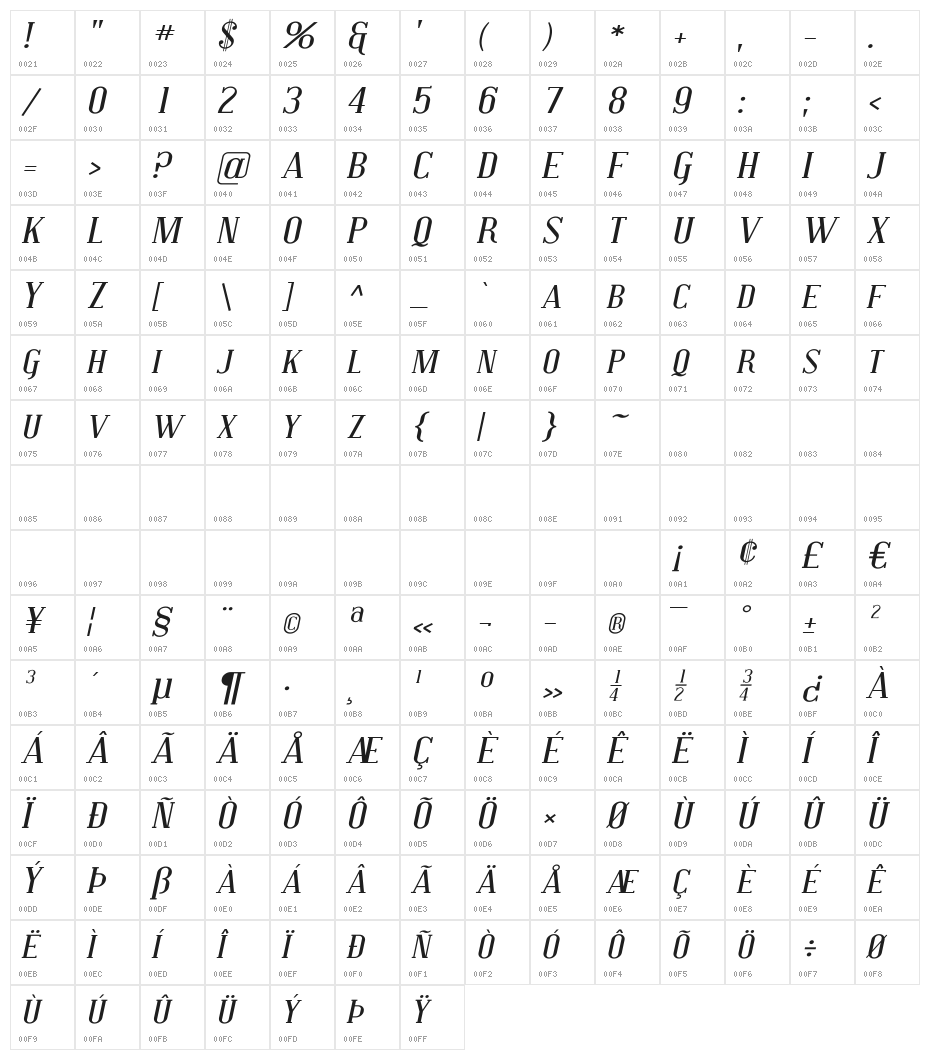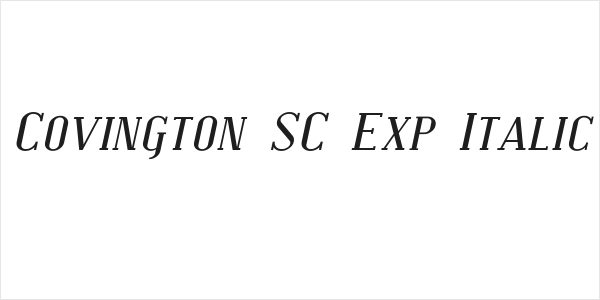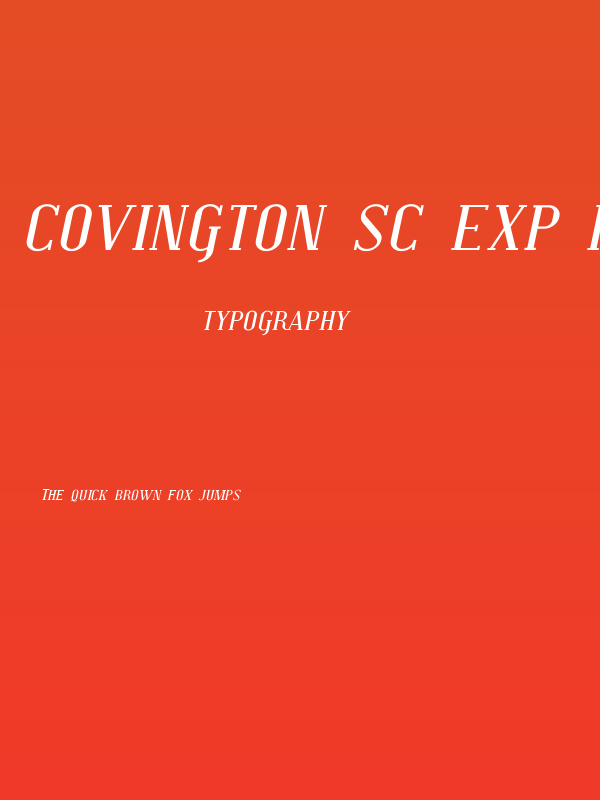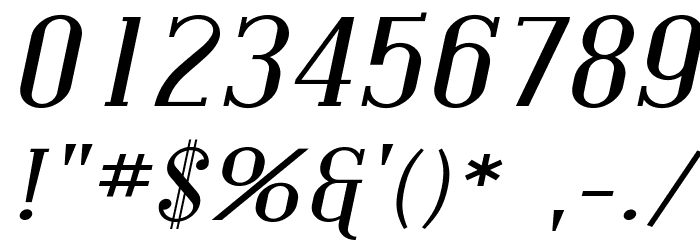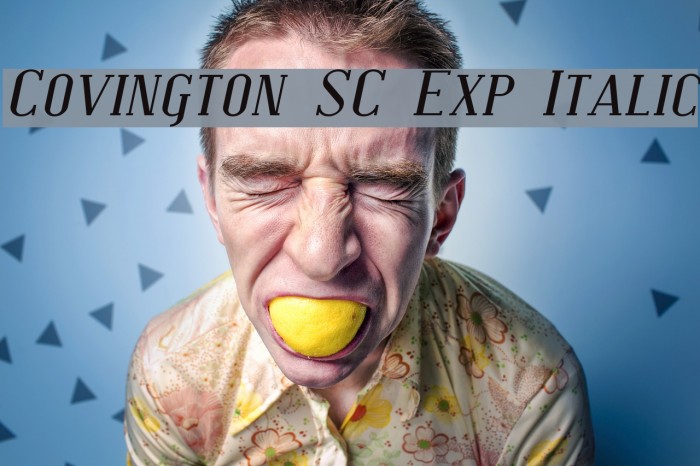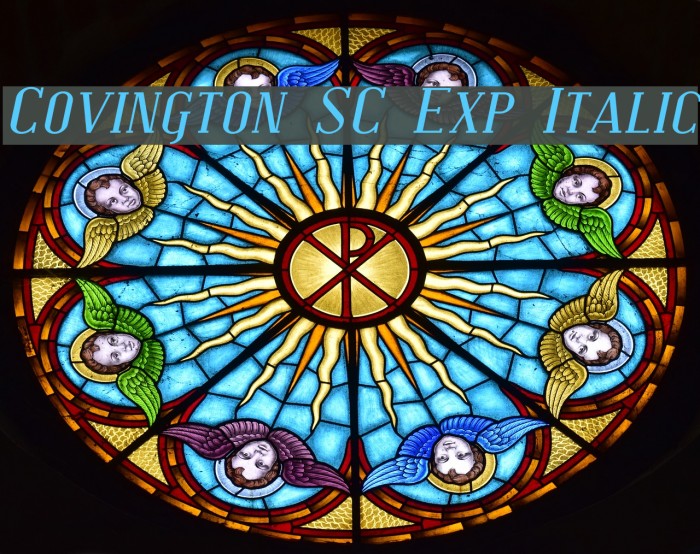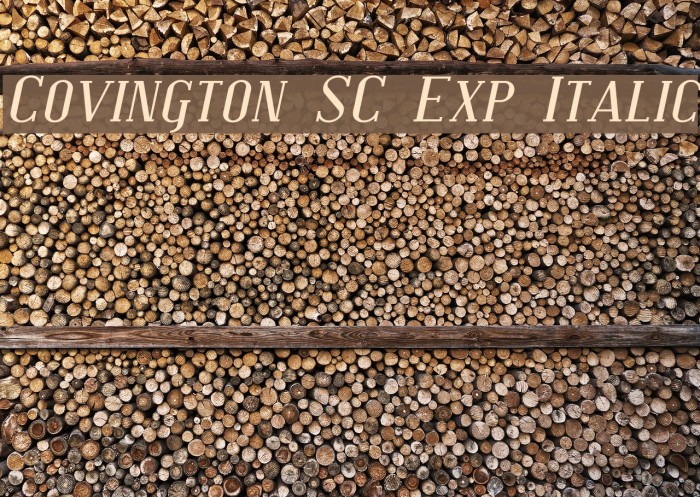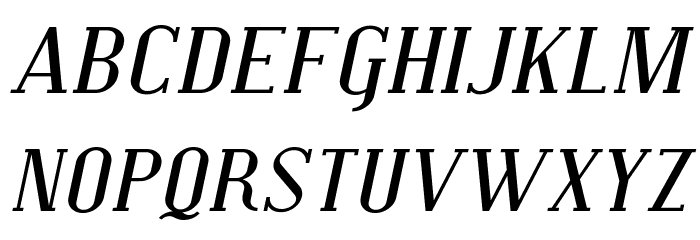
Covington SC Exp Italic Font
This font exudes a classic elegance with its italicized, serif style. The characters are slightly elongated, giving a sense of sophistication and movement. The serifs are pronounced yet refined, adding a touch of traditional charm. The uppercase letters are bold and commanding, while the lowercase letters maintain a graceful flow. Numbers are clear and distinct, ensuring readability. The special characters are well-integrated, maintaining the overall aesthetic. This font is perfect for projects that require a touch of class and elegance.
| Use Case | Headlines, Logos, Editorial design |
| Proposed Projects | Ideal for wedding invitations, luxury branding, editorial design, and elegant packaging. |